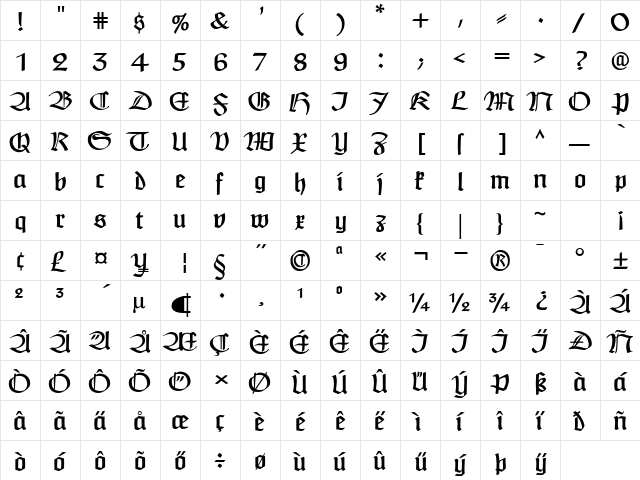
Claudius Regular
| Foundry | Typographer Mediengestaltung |
| Designer | Rudolf Koch. Digitalisiert durch Dieter Steffmann, Kreuztal |
| Copyright | Nach geschriebenen Vorlagen von Rudolf Koch stellte sein Sohn Paul Koch 1931-1934, also noch zu Lebzeiten seines Vaters, einen Grad der Schrift her; die uebrigen Grade wurden bis 1937 durch die Schriftgiesserei Gebr. Klingspor (Offenbach/M.) ergaenzt. |
Design Context for Claudius Typeface
Claudius takes a measured approach to typography — its balanced proportions and neutral character make it a reliable workhorse for both digital and print work.